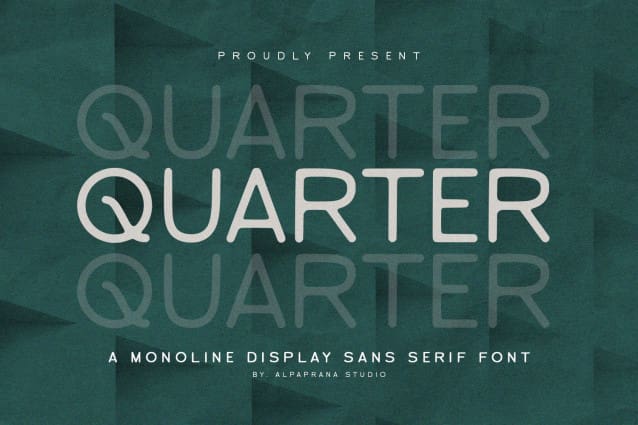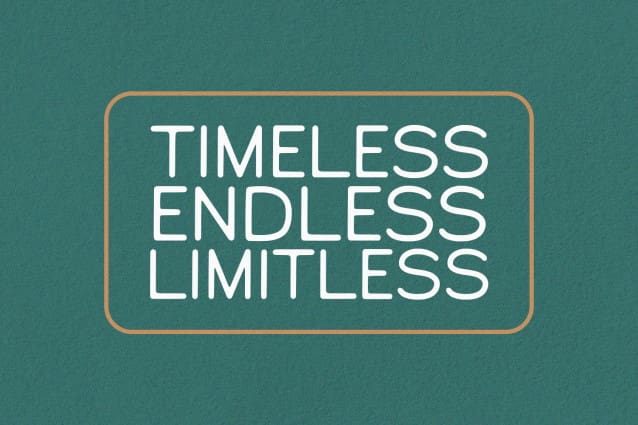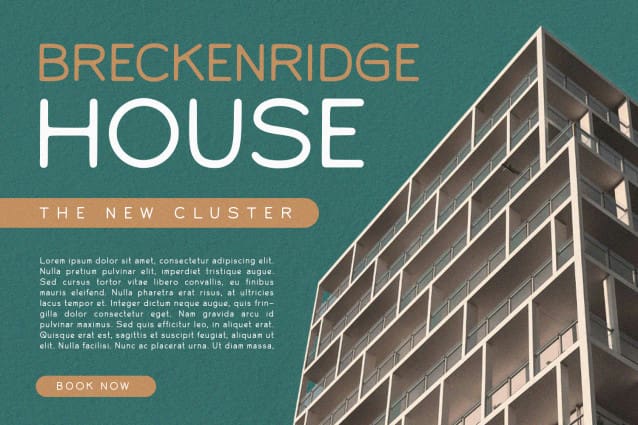
Quarter Font
Quarter Font is a monoline sans font with elegant and modern feels. It will be perfectly used for Branding, Logo Design, Lettering, Logotype, Clothing, Poster, magazine, packaging, posters, shopping bags, t-shirts, book covers, photography, special events and other design project.